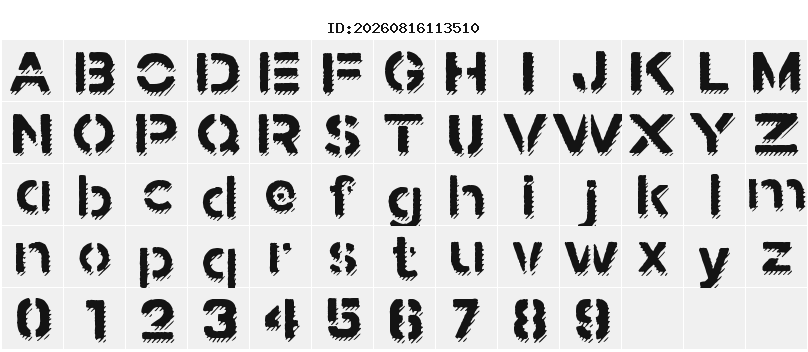
Stamped Navy Font Shadow Preview
• Font Name: Stamped Navy Font Shadow
• Full Font Name: Stamped Navy Font Shadow
• Version: Version 1.00 March 6, 2016, initial release
• PostScript Name: StampedNavyFontShadow
About Stamped Navy Font Shadow.ttf
Stamped Navy Font Shadow.ttf is a modern, elegant sans-serif font designed for ultimate readability and visual harmony. Perfect for branding, headlines, web design, and print materials.